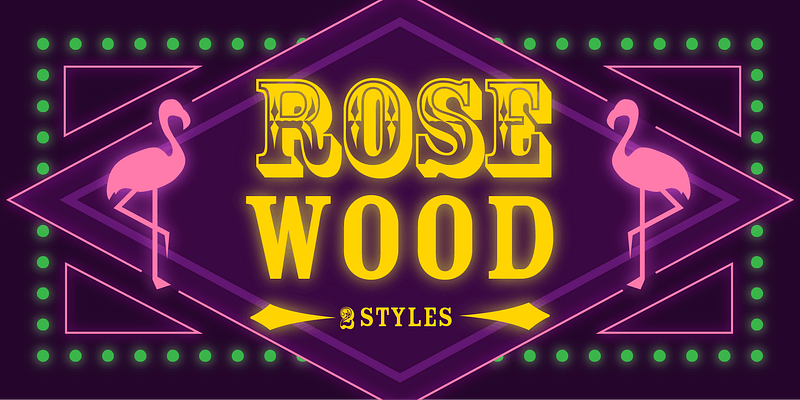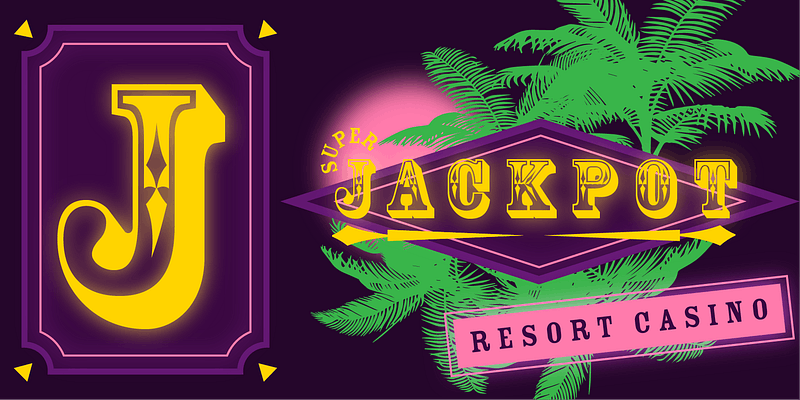
There were many typeface designs based on Clarendon letterforms seen in type catalogs from 1866 to 1875. Adobe’s Rosewood, released in 1994, is modeled after a chromatic design from William Page in 1874. (“Chromatic” or multicolored typefaces were first created by carefully registering and overprinting two or sometimes three versions of each letter in different colors to produce a flamboyant appearance). Rosewood’s Regular version is designed to overlay the Fill version for two-color printing.